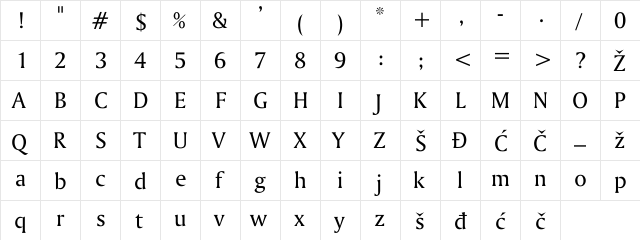
YUBitsAmerigoR Regular
YUBitsAmerigoR offers clean, dependable letterforms without strong stylistic allegiance, making it a practical choice for designers who need flexibility.